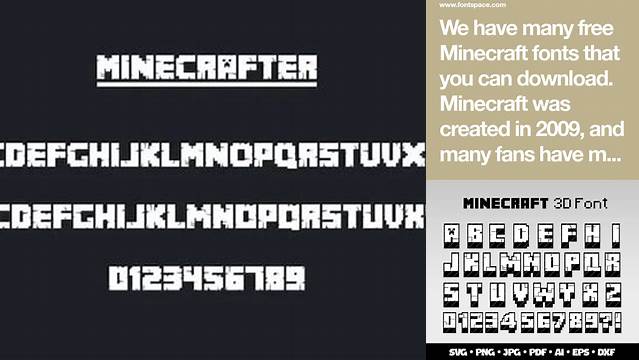
Minecraft Fonts: Fontspace Guide For Unique Game Text
Minecraft, the block-building game loved by millions, isn't just about gameplay; it's also about presentation. The fonts you use can dramatically change the look and feel of your Minecraft creations. Whether you're designing a server, creating custom maps, or just want to spice up your in-game text, understanding Minecraft fonts is crucial. In this guide, we'll dive deep into the world of Fontspace Minecraft, exploring the best fonts, how to install them, and tips for using them effectively.
Understanding Minecraft Fonts
When we talk about Minecraft fonts, we're referring to the various typefaces that can be used within the game and in related projects. The default Minecraft font has a distinct, pixelated style that's instantly recognizable. However, the beauty of Minecraft lies in its customizability. You can replace or supplement the default font with a wide array of custom fonts to suit your personal taste or project requirements. These fonts can be used for: In-game text: Change the way text appears in menus, signs, and chat. Server banners and logos: Create a unique identity for your Minecraft server. Custom maps and mods: Enhance the visual appeal of your creations. Fan art and merchandise: Design eye-catching graphics for your Minecraft-related projects. Choosing the right font is about more than just aesthetics; it's about creating an immersive experience. A well-chosen font can enhance the atmosphere of your game, making it more engaging and enjoyable. For example, a medieval-style font might be perfect for a fantasy-themed map, while a modern, sans-serif font could be ideal for a futuristic server. The possibilities are endless, and the only limit is your imagination. So, guys, let's get started and explore the exciting world of Minecraft fonts!
Finding the Best Minecraft Fonts on Fontspace
Fontspace is a fantastic resource for finding a wide variety of Minecraft fonts. Navigating Fontspace to find the perfect font for your project involves a few key steps. First, head over to the Fontspace website and use the search bar. Try keywords like "Minecraft," "pixel," or "retro" to narrow down your results. You can also browse through the various categories and tags to discover new and interesting fonts. Once you've found a font you like, take a closer look at the font details page. Here, you'll find important information such as the font license, character set, and creator. Make sure the font is licensed for your intended use, whether it's for personal or commercial projects. It's also a good idea to download a sample of the font and test it out in your Minecraft environment before committing to it. This will give you a better sense of how the font looks and feels in the game. Some popular Minecraft fonts available on Fontspace include: Minecrafter: A classic pixelated font that closely resembles the default Minecraft font. Pixel Operator: A versatile pixel font that works well for both in-game text and graphic design. VT323: A retro-style font that adds a touch of nostalgia to your Minecraft creations. When choosing a font, consider the overall style and theme of your project. A pixelated font might be perfect for a retro-themed map, while a bolder, more modern font could be ideal for a competitive server. Experiment with different fonts and see what works best for you. Don't be afraid to try something new and unique. With a little creativity, you can find the perfect font to enhance your Minecraft experience. Happy font hunting!
Tips for Using Minecraft Fonts Effectively
Choosing and installing Minecraft fonts is just the beginning. Using them effectively can significantly enhance your game or project's visual appeal. Here are some tips to help you make the most of your custom fonts. Readability is Key: While a fancy font might look cool, it's essential to ensure it's readable, especially for in-game text. Avoid fonts that are too thin, overly stylized, or have poor spacing. Players need to be able to easily read signs, chat messages, and menu options. Consider the Theme: The font should match the theme of your Minecraft world or project. A medieval-style font would be perfect for a castle or fantasy map, while a futuristic font would be more suitable for a space-themed server. Think about the overall aesthetic you're trying to achieve and choose a font that complements it. Use Consistent Fonts: Stick to a limited number of fonts throughout your project to maintain a consistent look and feel. Using too many different fonts can make your creation look cluttered and unprofessional. Choose one or two primary fonts and use them consistently for headings, body text, and other elements. Test Different Sizes and Colors: Experiment with different font sizes and colors to see what works best in your Minecraft environment. Some fonts may look better at larger sizes, while others may be more legible in certain colors. Use contrasting colors to make the text stand out against the background. Create Custom Textures: For advanced users, you can create custom textures for your Minecraft fonts to add even more visual flair. This involves creating image files for each character in the font and then mapping them to the corresponding characters in the font file. This technique allows you to create highly unique and stylized fonts that perfectly match your project's theme. Optimize for Performance: Some fonts can be more resource-intensive than others, especially if they have a lot of detail or special effects. If you're experiencing performance issues, try using a simpler font or reducing the number of fonts used in your project. By following these tips, you can ensure that your Minecraft fonts are not only visually appealing but also functional and effective. Experiment, have fun, and let your creativity shine!
Conclusion: Unleash Your Creativity with Minecraft Fonts
Minecraft fonts offer a fantastic way to personalize your game and add a unique touch to your creations. From designing custom maps and server banners to creating eye-catching fan art, the possibilities are endless. By understanding how to find, install, and use Minecraft fonts effectively, you can unlock a whole new level of creativity and make your Minecraft experience truly your own. Remember, the key to using Minecraft fonts effectively is to choose fonts that match your project's theme, ensure readability, and maintain consistency. Don't be afraid to experiment with different fonts and styles to find what works best for you. And if you encounter any issues, don't hesitate to seek help from online communities or consult the troubleshooting tips outlined in this guide. So go ahead, explore the world of Minecraft fonts and unleash your creativity! Whether you're building a medieval castle, a futuristic city, or a cozy cottage, the right font can make all the difference. Happy crafting!